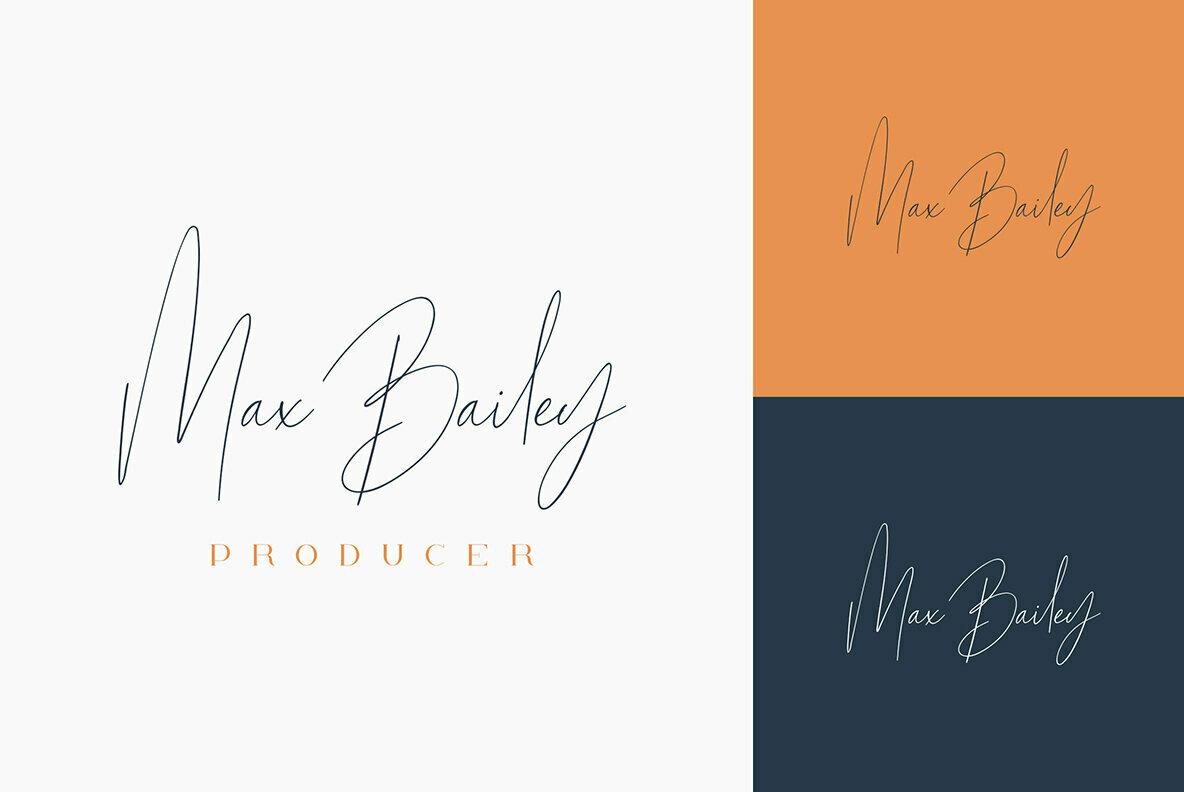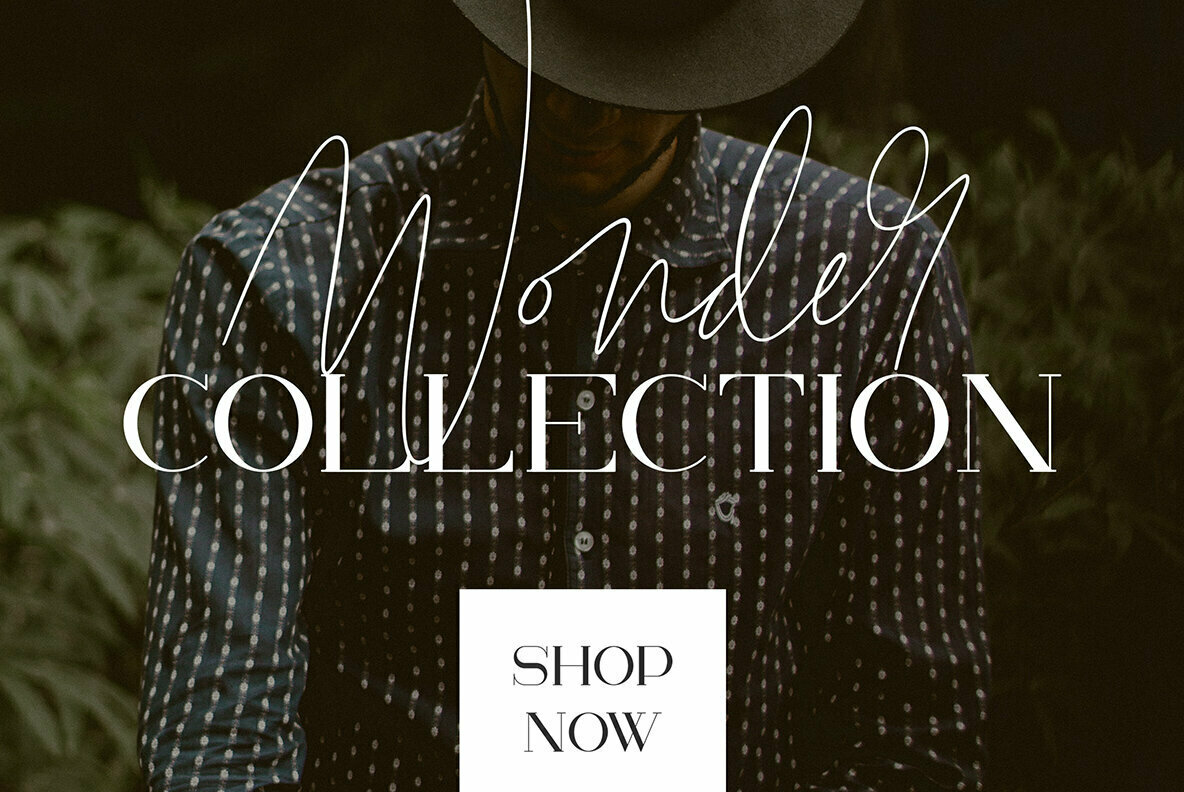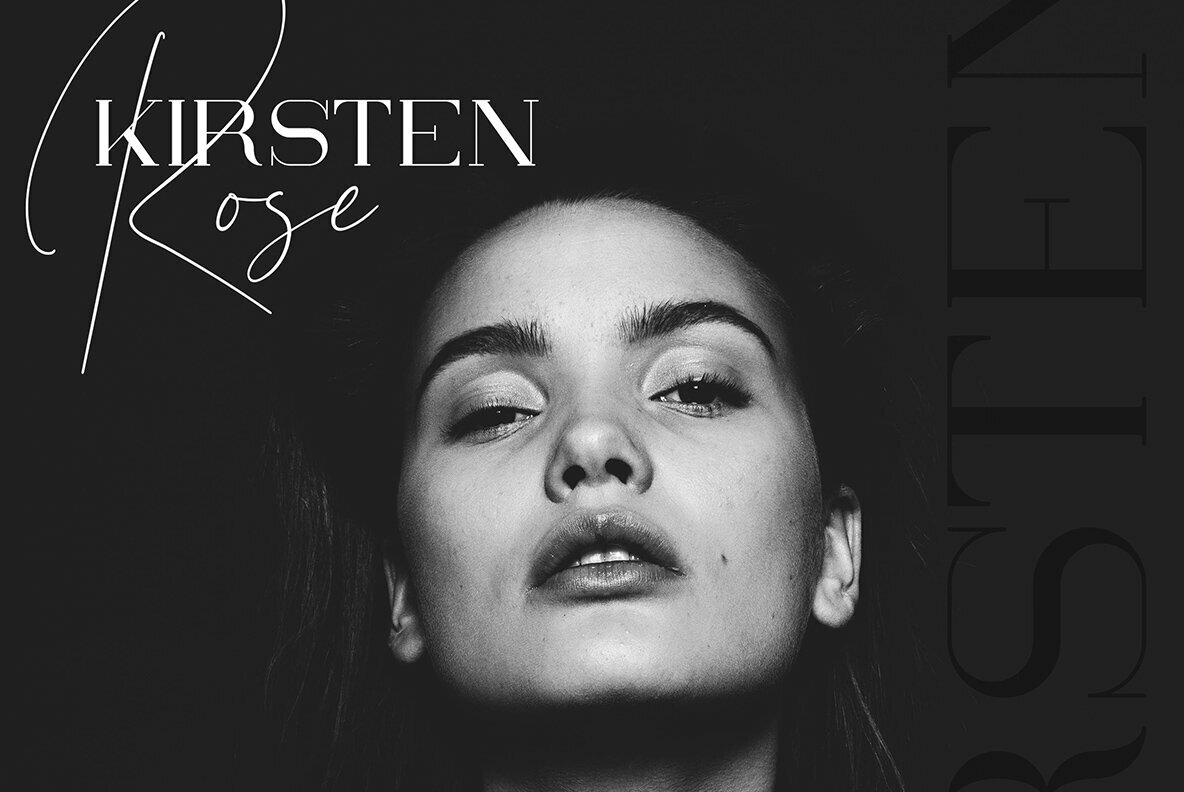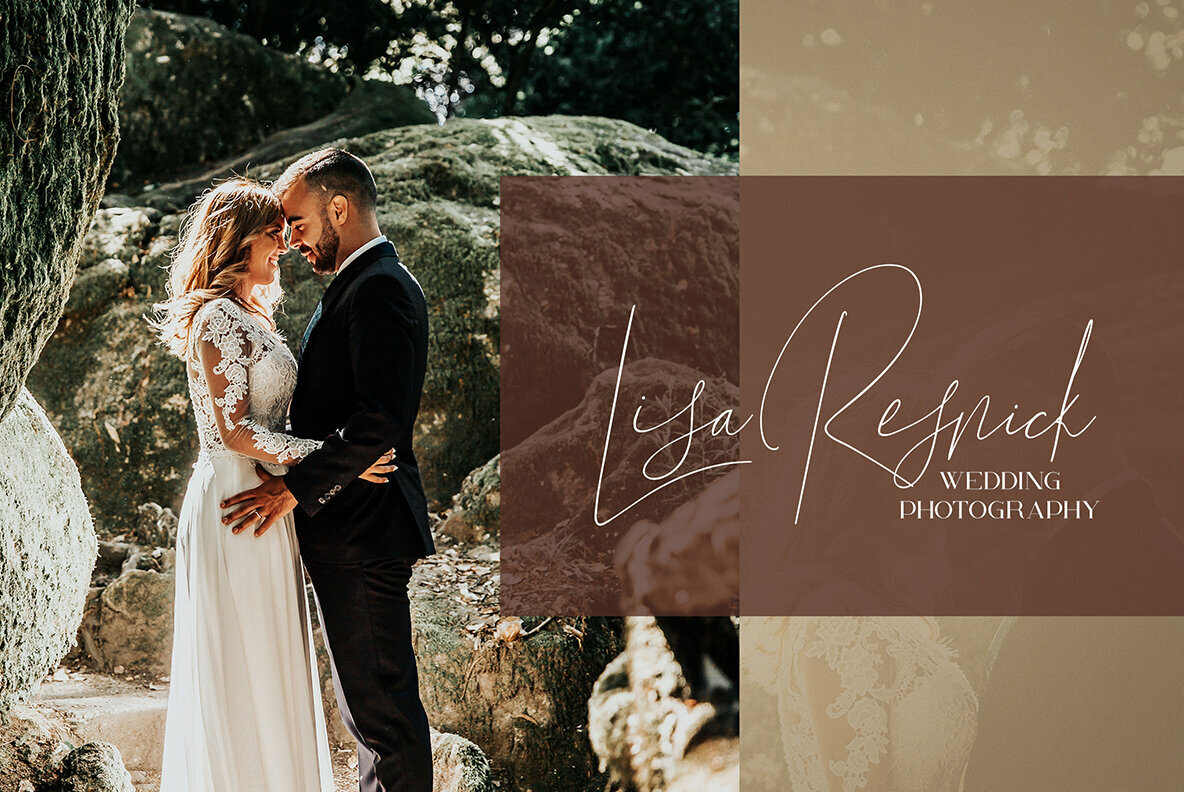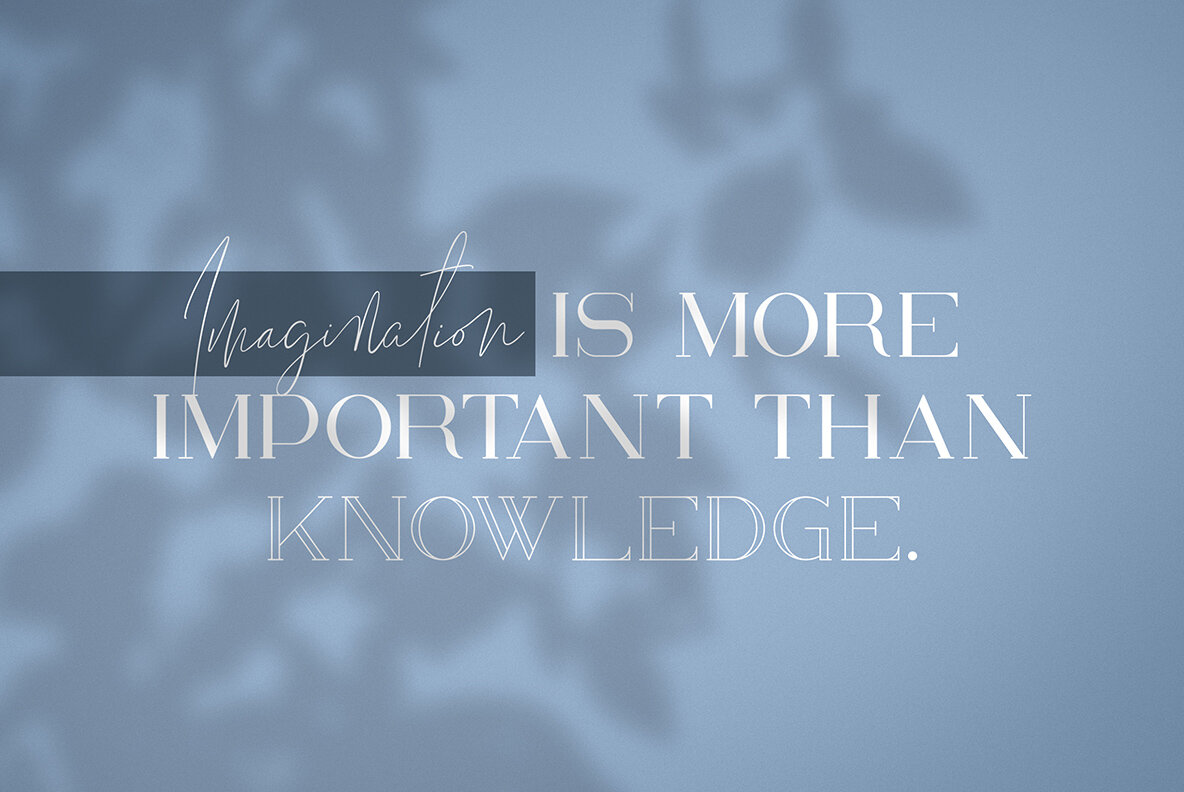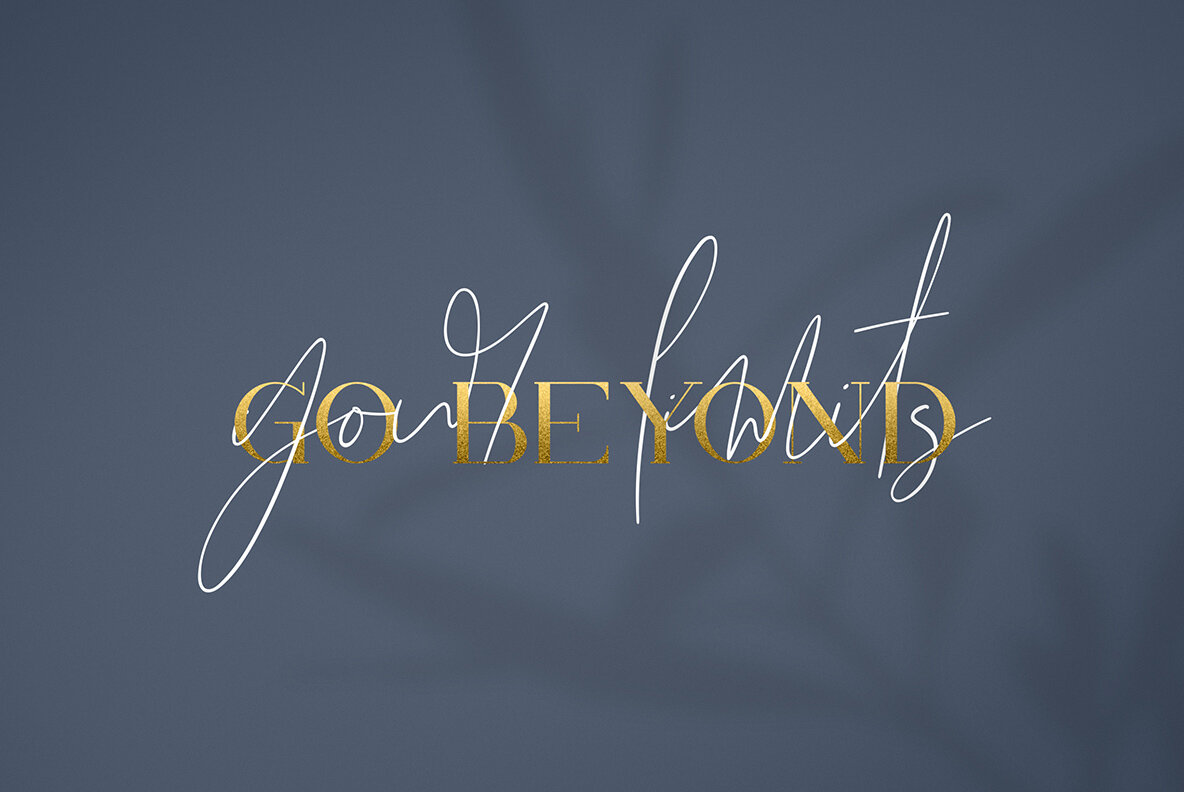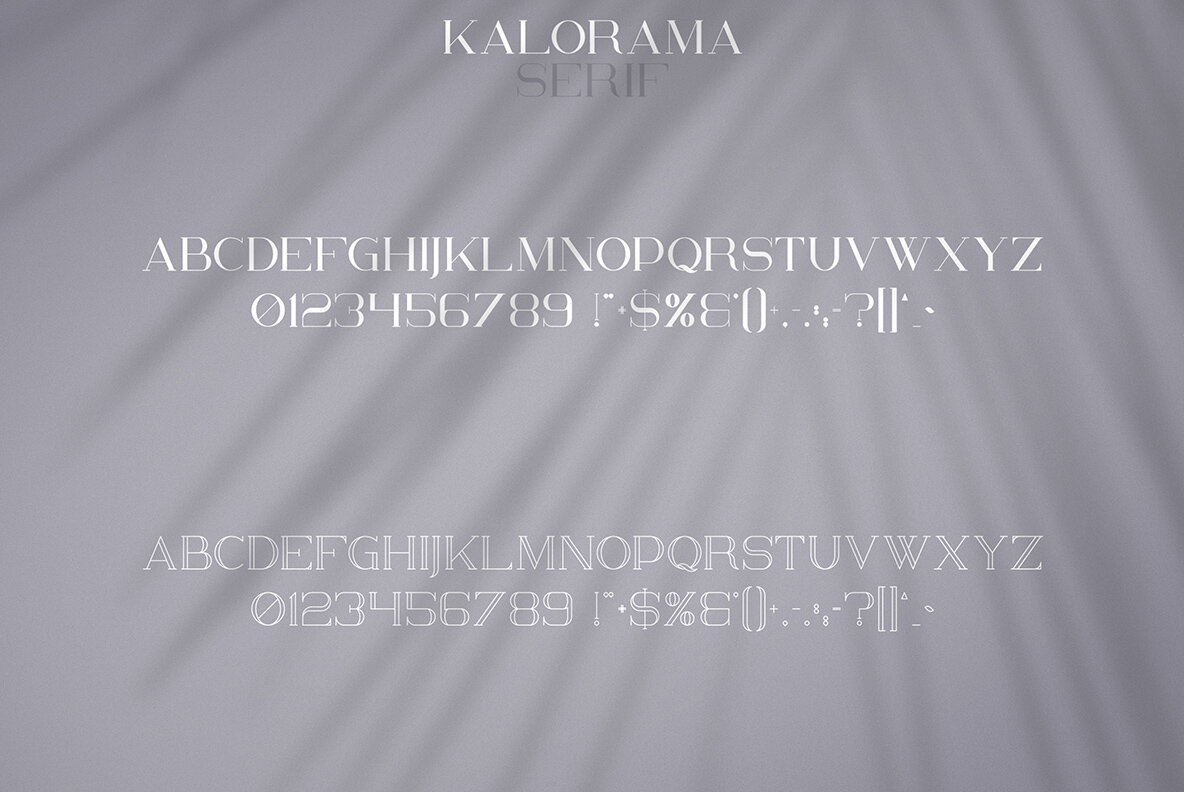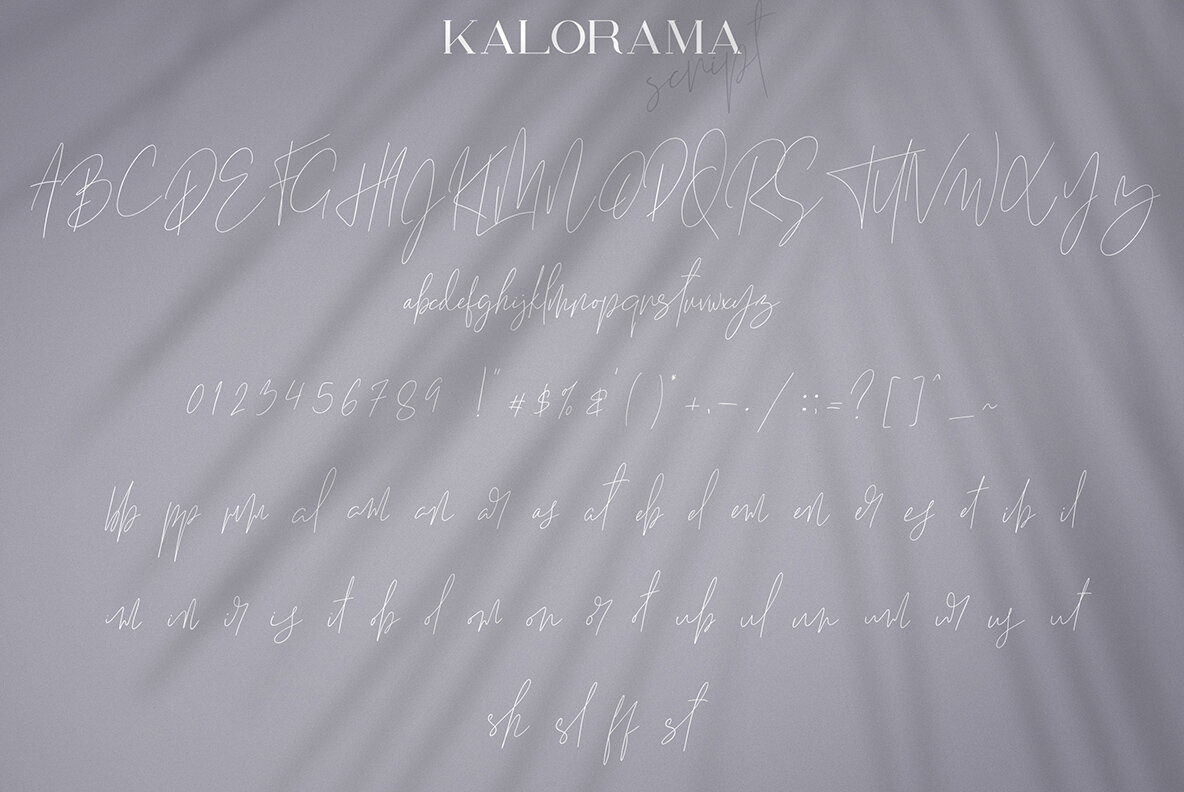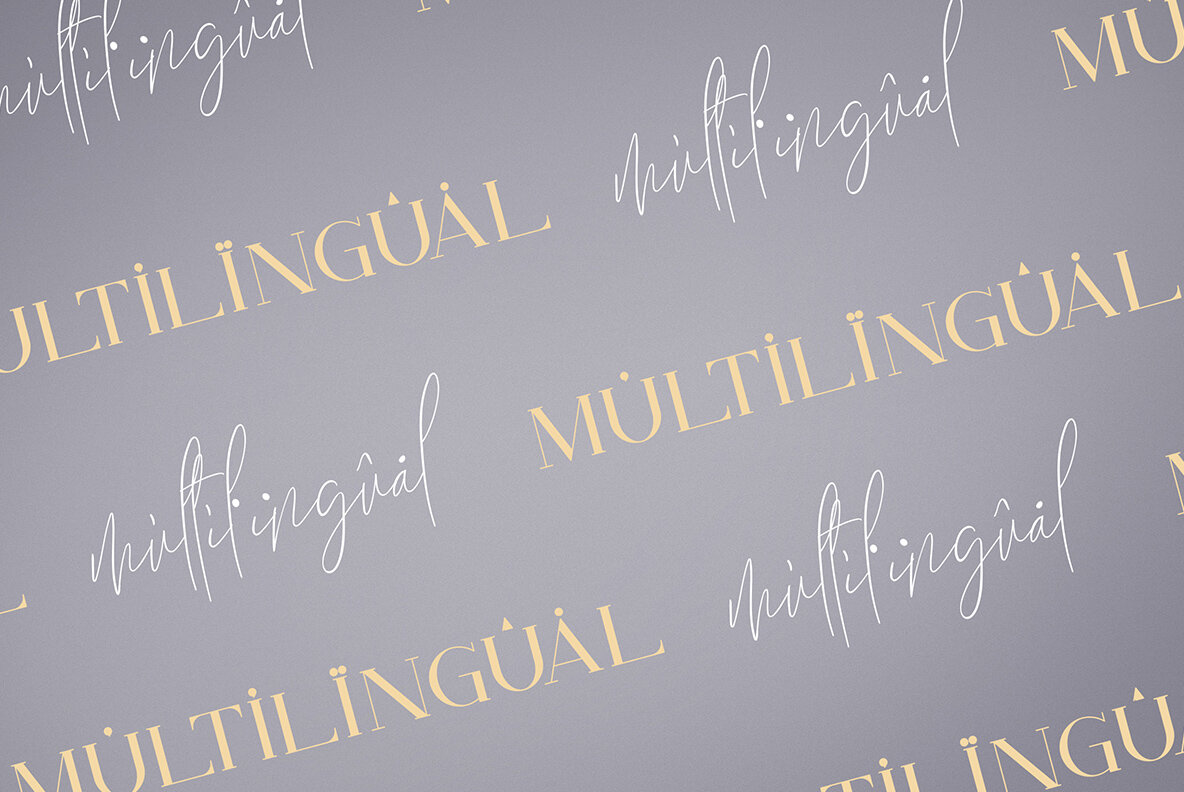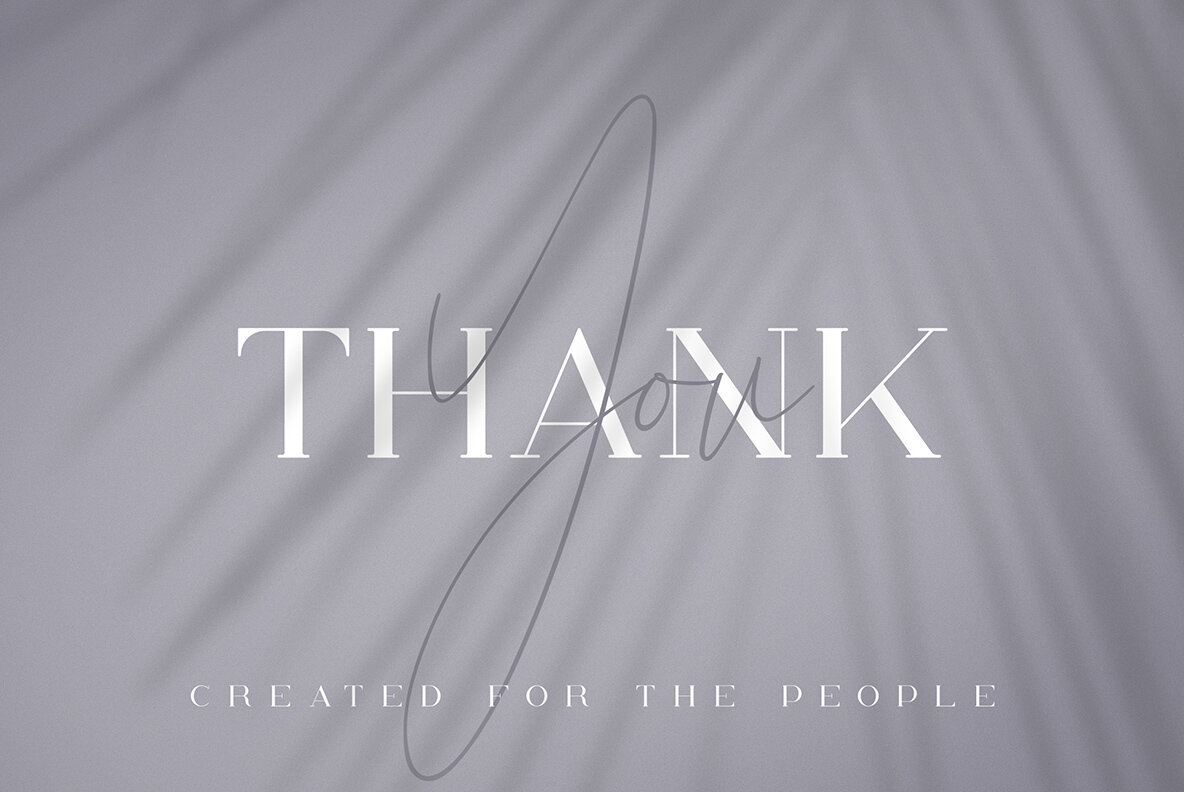
Kalorama Font Duo
Kalorama Regular
Kalorama Outline
Kalorama Script
Kalorama is clean, modern typeface with serif ( regular and outline ) and script versions, ligatures and multilingual support. It's a very versatile font that works great in large and small sizes.
Kalorama is perfect for branding projects, home-ware designs, product packaging, magazine headers - or simply as a stylish text overlay to any background image.